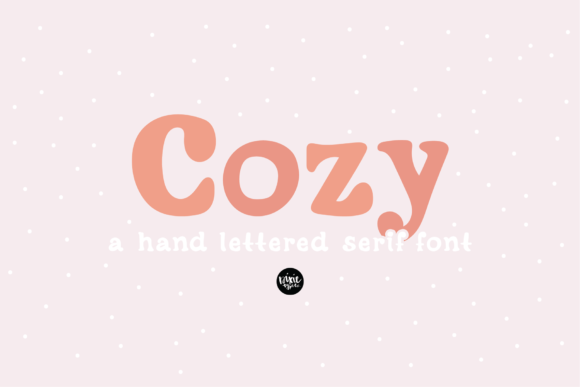
The Perfect Addition to Your Creative Projects
Have you ever been brainstorming a new design idea and suddenly, the perfect font pops into your mind? For many designers, this moment is like a spark of creativity that sets their imagination ablaze. It’s that feeling of excitement and anticipation that comes with bringing a fresh idea to life. And, for designers looking to add a personal touch to their projects, Cozy Font is the perfect addition to take their creations to the next level.
Cozy Font is a bold and chunky lettered display font that adds a touch of warmth and personality to any design. Whether you’re creating a logo, a poster, or a social media graphic, this font is sure to make your work stand out. Its unique style and character make it a valuable asset for designers looking to add a bit of flair to their projects.
With Cozy Font, designers can add a cozy and inviting feel to their designs, making it perfect for projects that require a sense of warmth and approachability. Whether you’re working on a branding project or a promotional campaign, Cozy Font is sure to bring a smile to your audience’s face.
Key Features of Cozy Font
- Font Family: Cozy Font is a high-quality, professional font family with multiple styles, including regular, bold, italic, and bold italic.
- Character Set: Supports a wide range of languages, including Latin, Cyrillic, Greek, and many more, with over 1000 glyphs.
- Unique Characteristics: Cozy Font features a unique blend of modern and classic design elements, with subtle rounded edges and elegant lines, making it perfect for use in branding, publishing, and advertising.
Designer Review: Cozy Font
At first glance, Cozy Font appears to be a charming addition to any digital design project. The rounded edges and gentle curves create a welcoming atmosphere that’s perfect for branding and marketing materials. ✨ The font is highly customizable, allowing designers to fine-tune the spacing, weight, and style to suit their needs.
However, there are some limitations that designers should be aware of. ⚠️ For one, the font’s versatility can sometimes come across as generic or unoriginal. This may be a concern for designers who want their brand to stand out from the crowd. Additionally, the font’s rounded edges can make it difficult to read at smaller font sizes, which may be a problem for designers who need to use the font in print materials.
In terms of overall impression, Cozy Font is a solid choice for designers who want a friendly, approachable font. While it may not be the most innovative or exciting option, it’s a reliable and effective choice for a wide range of design projects.
Here are some pros and cons of Cozy Font:
- ✨ Highly customizable
- ✨ Welcoming and friendly atmosphere
- ⚠️ May appear generic or unoriginal
- ⚠️ Difficult to read at smaller font sizes
Tips for Getting the Most Out of Cozy Font
To maximize the effectiveness of Cozy Font, use it in conjunction with warm colors and soft textures. This will create a cozy and inviting atmosphere in your designs. Additionally, use Cozy Font sparingly to avoid overwhelming the viewer.
Common Use Cases for Cozy Font
Cozy Font is ideal for use in designs that require a warm and inviting tone, such as:
- Winter-themed designs
- Home decor and furniture designs